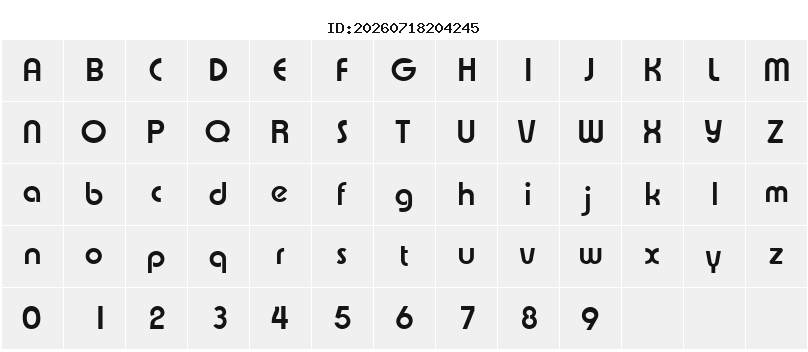
• Font Name: Crandall
• Full Font Name: Crandall Regular
About Crandall.ttf
Crandall.ttf is a modern, elegant sans-serif font designed for ultimate readability and visual harmony. Perfect for branding, headlines, web design, and print materials.